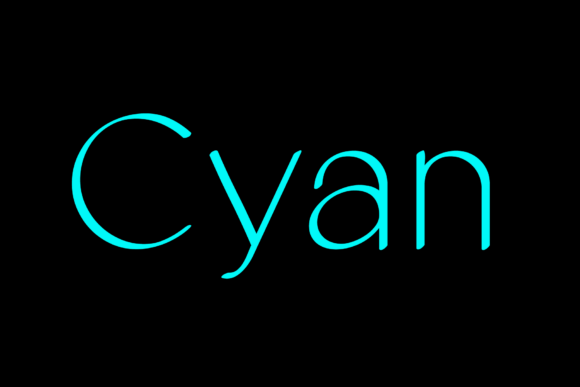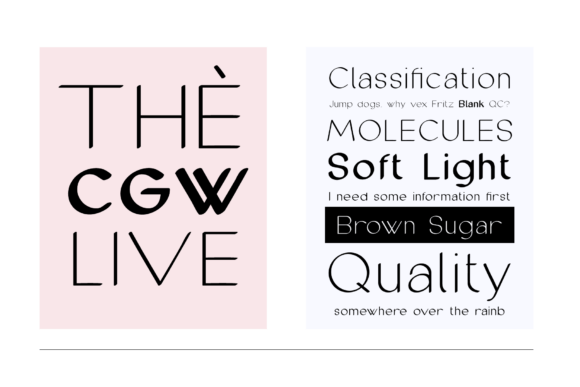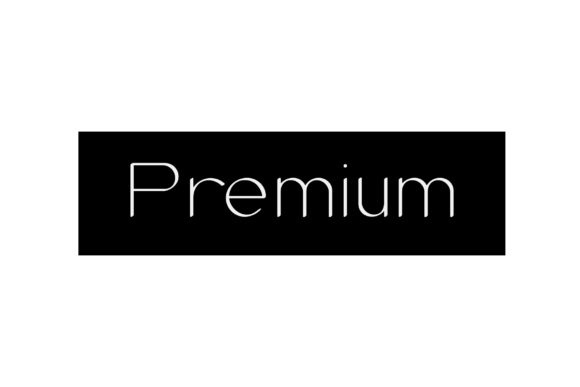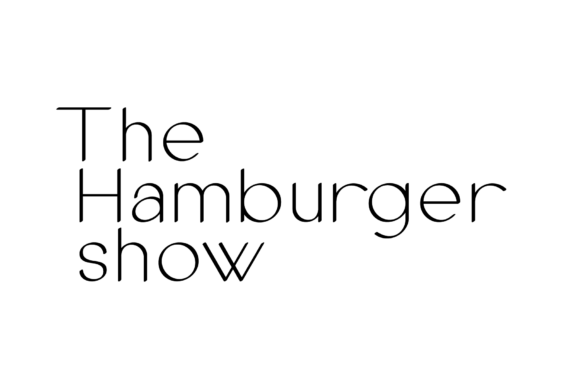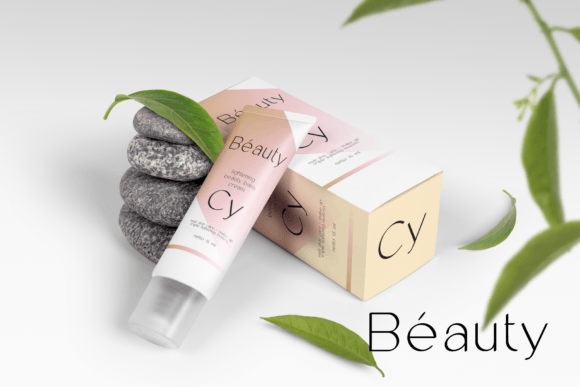
The Cofley Font: A Modern, Elegant Sans Serif for Creative Projects
I’ll never forget the moment I stumbled upon the Cofley font while working on a branding project for a luxury client. I was on a mission to find the perfect typeface that exuded elegance, sophistication, and a touch of modernity. After hours of scouring through font libraries, I finally found Cofley, and it was love at first sight! 💫
A Personal Review of Cofley
What I Love About Cofley
- ✨ Modern and elegant design: Cofley’s rounded sans serif design gives it a fresh and contemporary feel that’s perfect for display and reading purposes.
- ✅ 10 weights to choose from: With 10 weights ranging from Thin to Black, you can use Cofley for a variety of projects, from delicate headings to bold statements.
- 🌎 Central Europe multi-lingual glyphs: Cofley contains 331 glyphs, making it an excellent choice for projects that require support for multiple languages.
While Cofley is an excellent font, there are a few things to keep in mind:
- 🤔 Limited availability of stylistic alternates: Cofley’s OpenType features are somewhat limited, which might be a drawback for designers looking for more creative freedom.
- ⚠️ Not ideal for body text: While Cofley is suitable for reading purposes, it’s not the best choice for lengthy body text due to its rounded design.
The Story Behind Cofley
Cofley was designed with the goal of creating a modern, elegant sans serif font that could be used for a wide range of creative projects. The design process involved experimenting with different shapes and forms to create a unique, rounded design that’s both sophisticated and approachable.
Q: What is the Cofley font?
A: Cofley is a modern, elegant rounded sans serif typeface consisting of 10 weights and 331 glyphs.
Q: Is Cofley suitable for body text?
A: While Cofley can be used for reading purposes, it’s not ideal for lengthy body text due to its rounded design.
Q: Does Cofley support multiple languages?
A: Yes, Cofley contains Central Europe multi-lingual glyphs, making it an excellent choice for projects that require support for multiple languages.